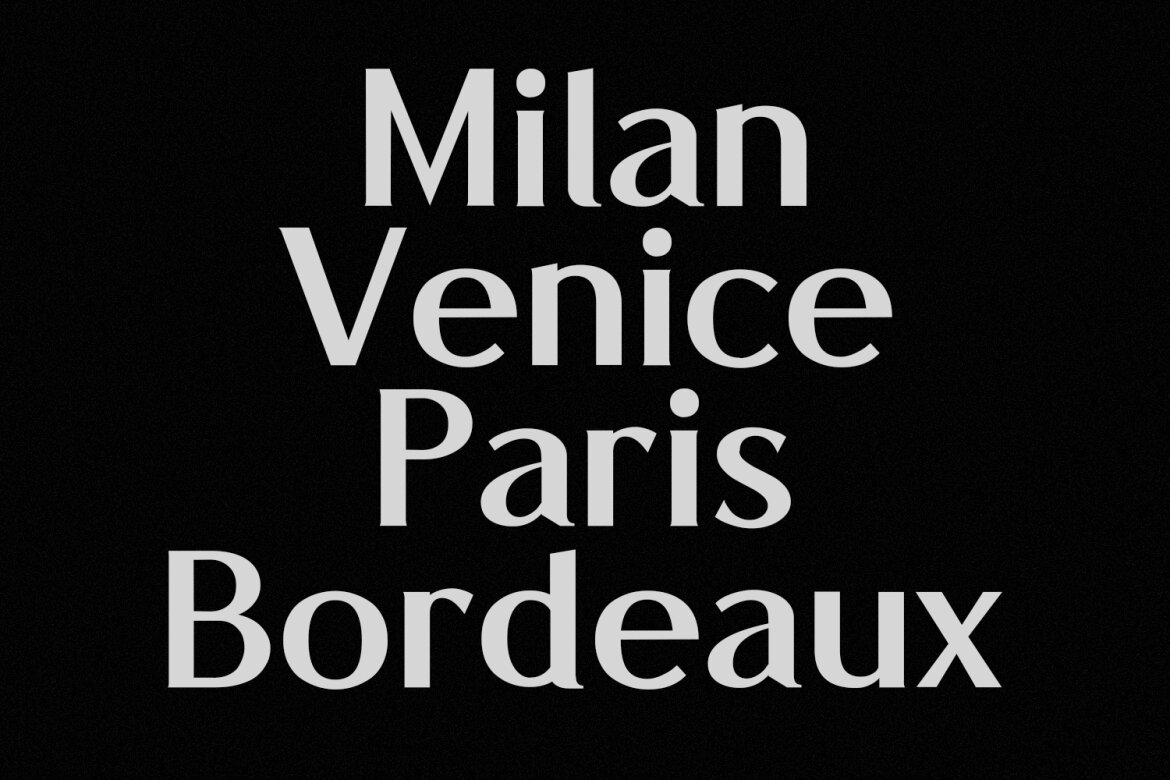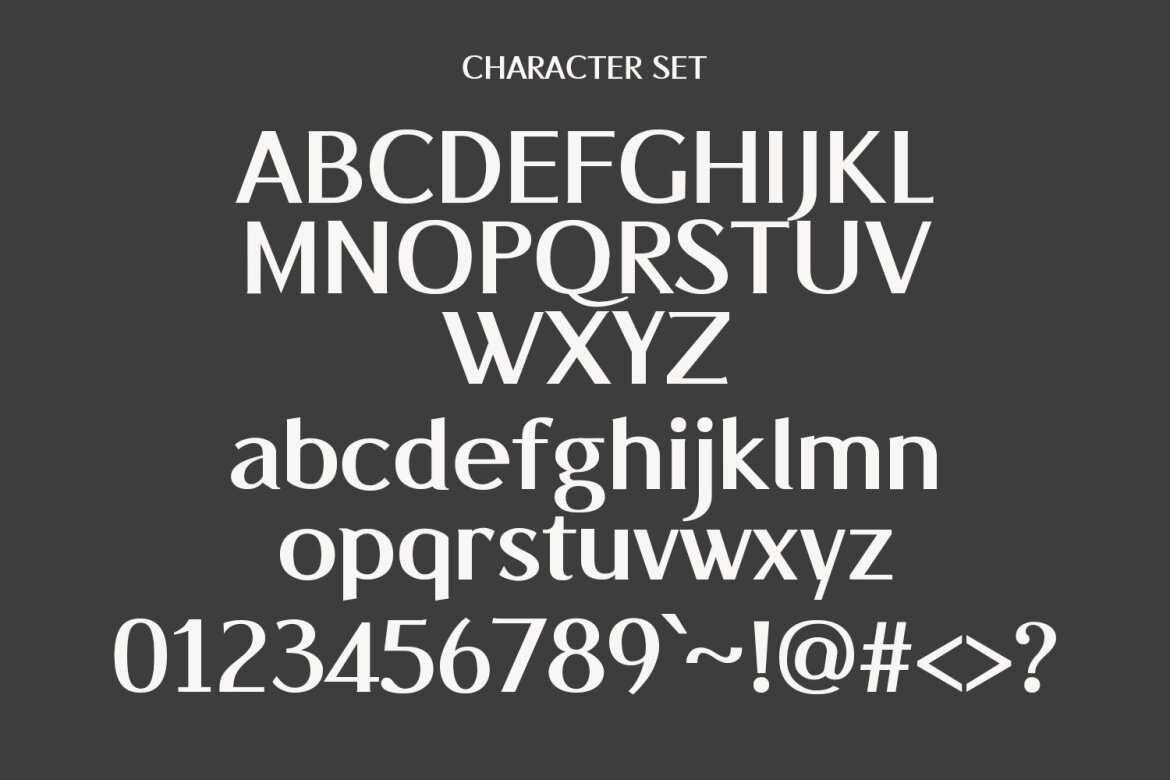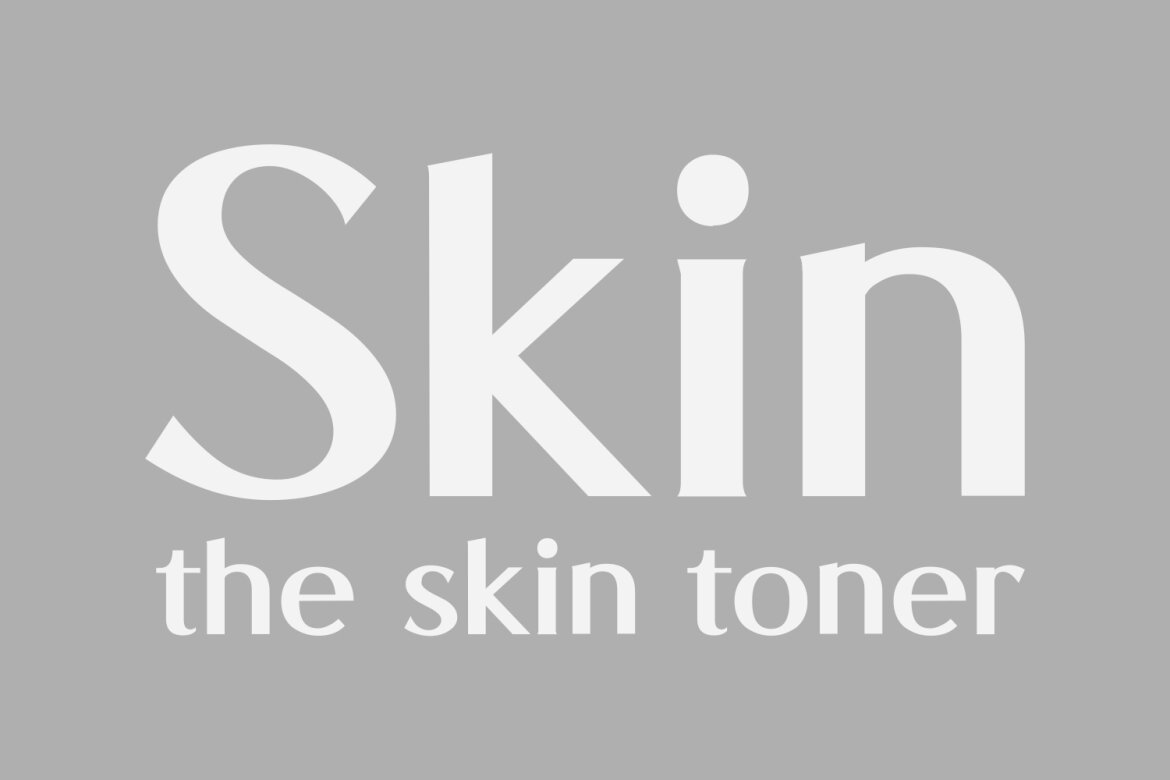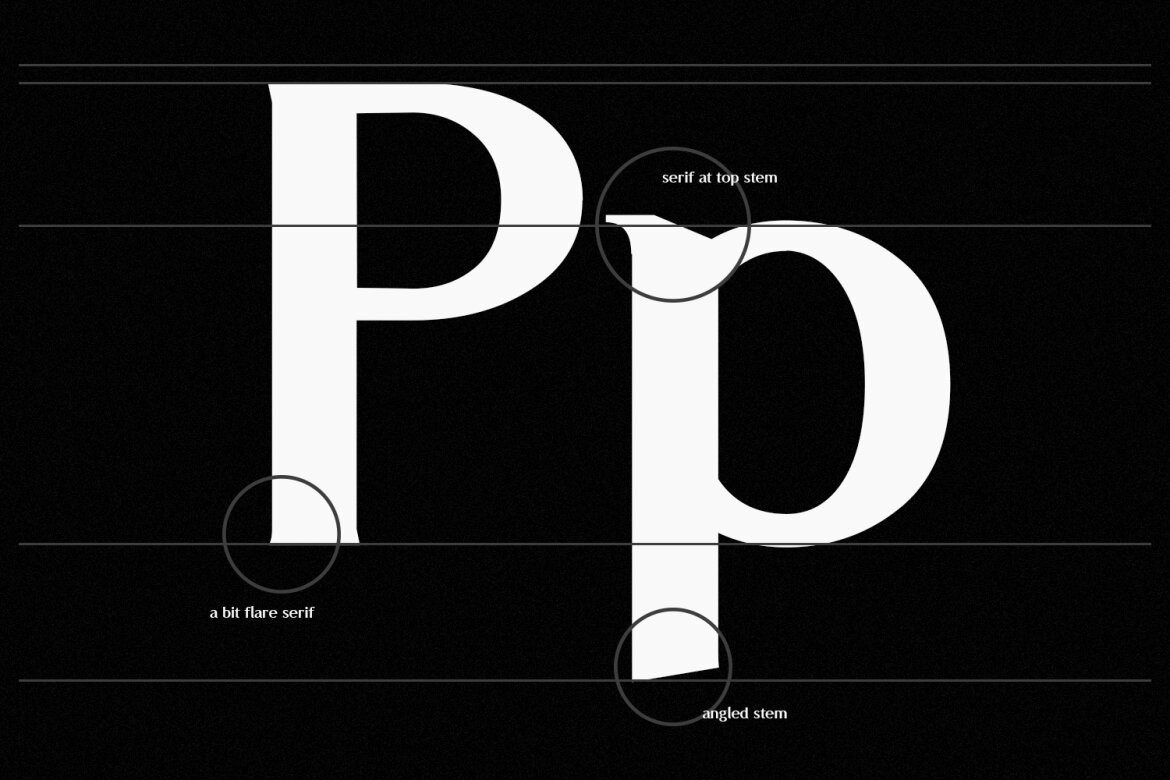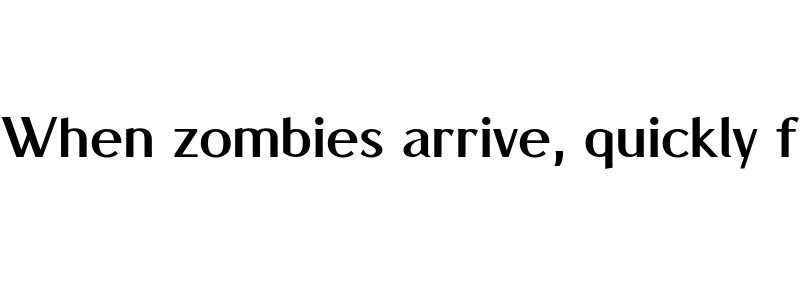
Abigar Fashion Semi Serif FREE Font
Abigar preview
Abigar
Abigar is a semi serif font. Contrast Regular stroke, fun character with a bit of ligatures and alternates. To give you an extra creative work. Abigar font support multilingual more than 100+ language. This font is good for logo design, Social media, Movie Titles, Books Titles, a short text even a long text letter and good for your secondary text font with script or serif. Make a stunning work with Abigar font.